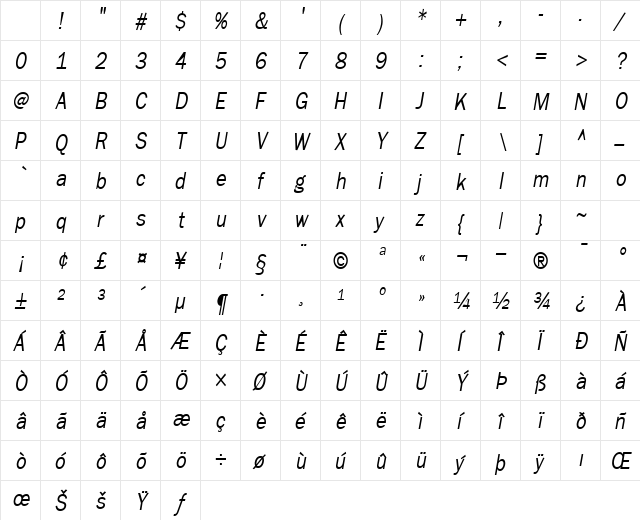
Complete FranklinThin Oblique glyph index. Displaying only characters natively supported by FranklinThin Oblique font.
FranklinThin is a composed and adaptable typeface that performs quietly and consistently across a wide range of design contexts. The slanted form adds forward momentum and visual energy. Its slender proportions lend an understated elegance to any composition.
Pro Tip: Use FranklinThin for emphasis, pull quotes, and subheadings where its slanted energy can add rhythm to the layout.